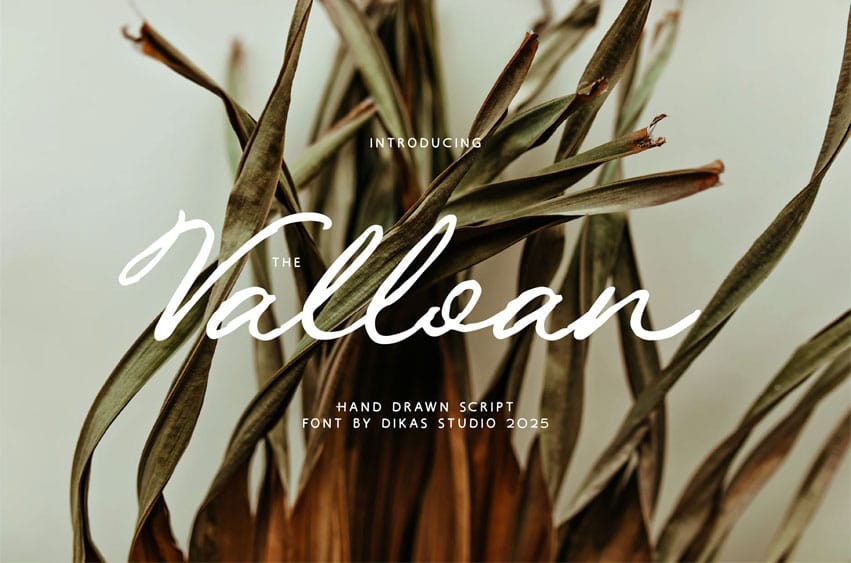
The Valloan Font is a hand-drawn script font with a natural, rough texture that brings an authentic signature feel to your designs.
Its flowing strokes and expressive character shapes make it perfect for logos, branding, invitations, quotes, and any project that needs a personal touch.
With unique alternate characters that curve and swirl beautifully, The Valloan offers extra charm and flexibility, giving your designs a more artistic and standout look.